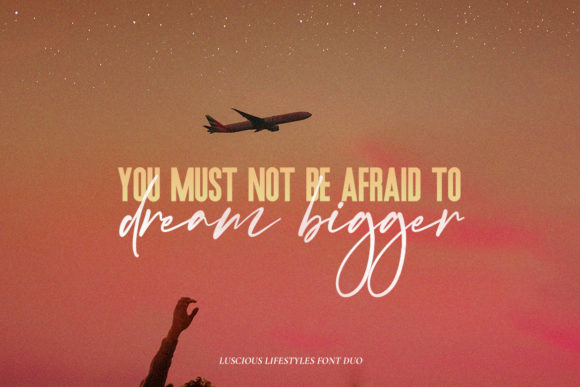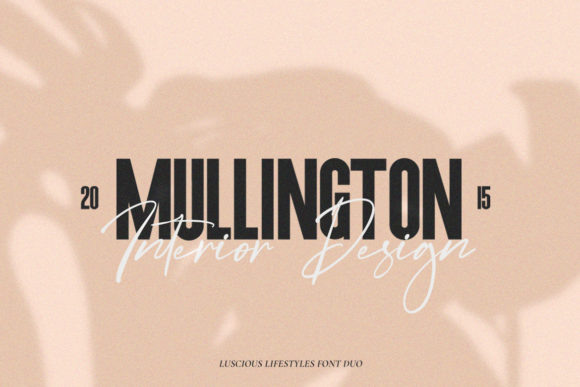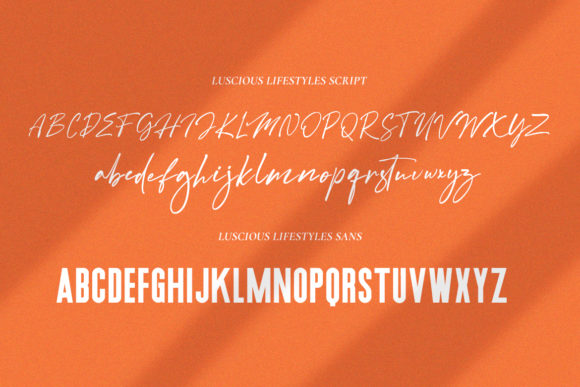
Introduction to Luscious Lifestyle Duo Font
Luscious Lifestyle Duo is a match made in heaven between a script and a sans serif font.
Fall in love with its outstanding versatility and make it your favorite go-to font, no matter the context .
Key Features of Luscious Lifestyle Duo Font
Why Choose Luscious Lifestyle Duo Font?
Luscious Lifestyle Duo Font offers exceptional quality and versatility, making it a valuable addition to your design toolkit. Whether you’re creating for personal projects or commercial use, Luscious Lifestyle Duo Font delivers professional results.